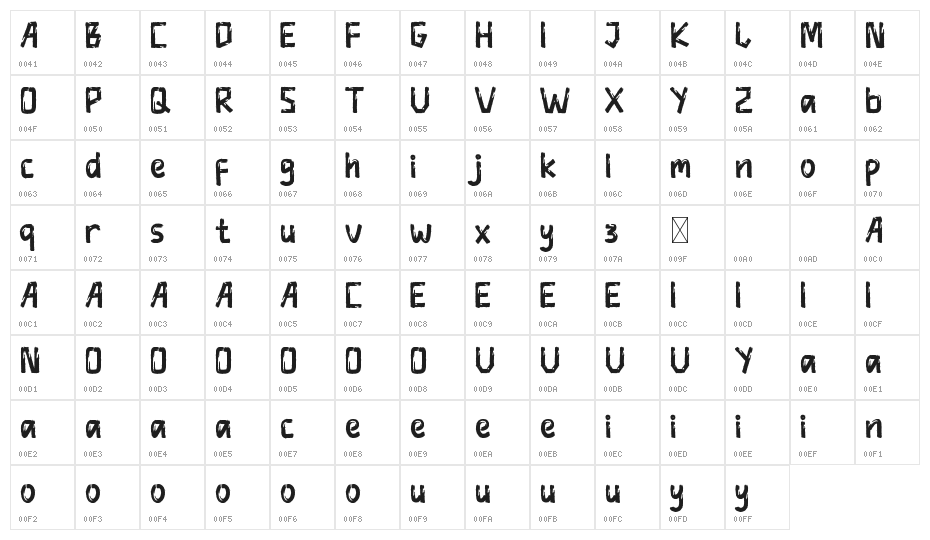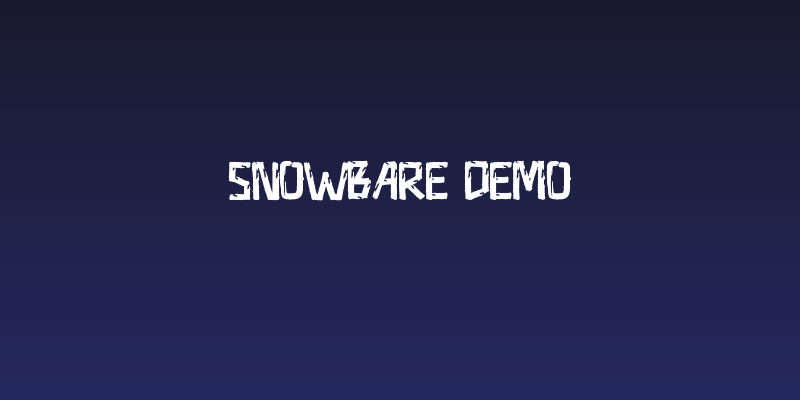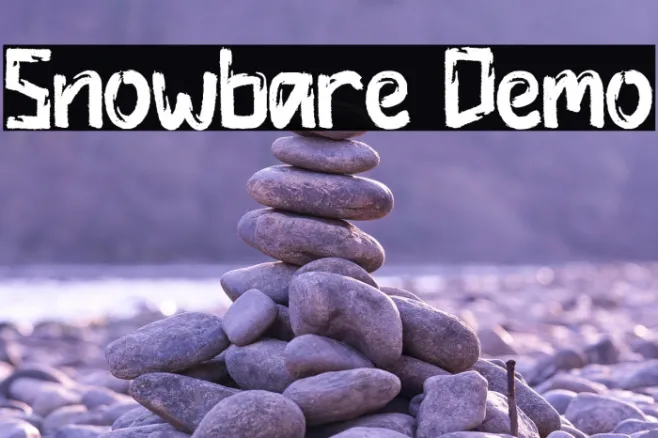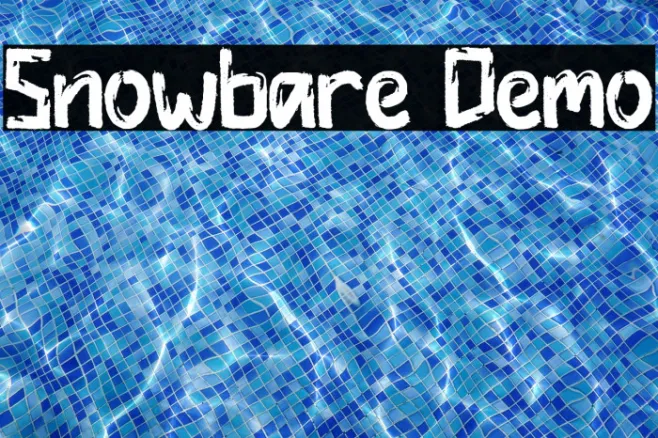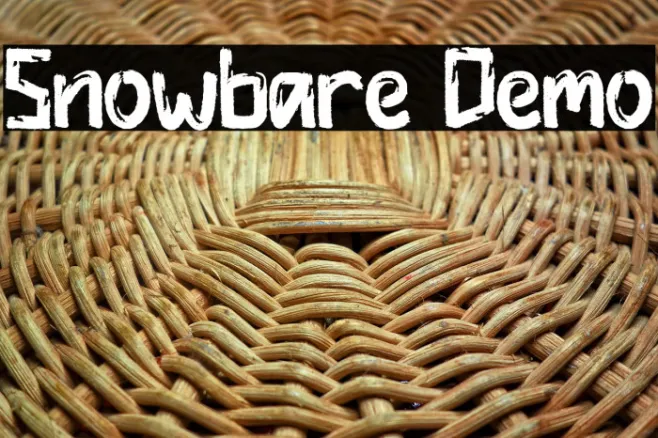
Snowbare Demo Font
Snowbare Demo Description
This font features a bold, distressed style with a hand-drawn appearance. The characters are irregular and rugged, giving a raw and edgy feel. The uppercase and lowercase letters maintain a consistent rough texture, which adds to the font's unique character. The strokes are thick and uneven, creating a sense of movement and energy. This font is ideal for projects that require a bold statement or a grunge aesthetic. The numbers and special characters follow the same distressed style, ensuring a cohesive look across all text elements.
| Proposed Projects | Ideal for posters, album covers, branding, and any design needing a bold, edgy look. |